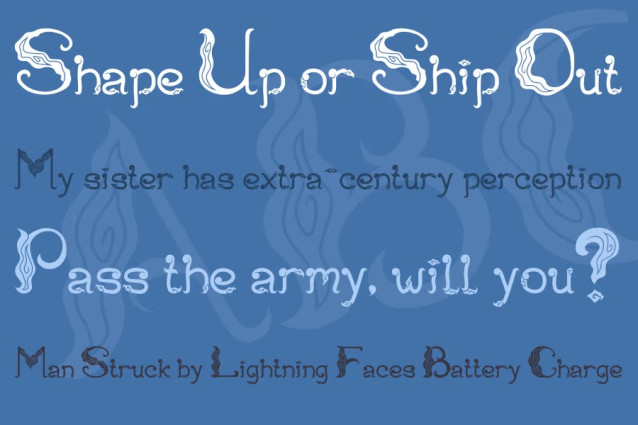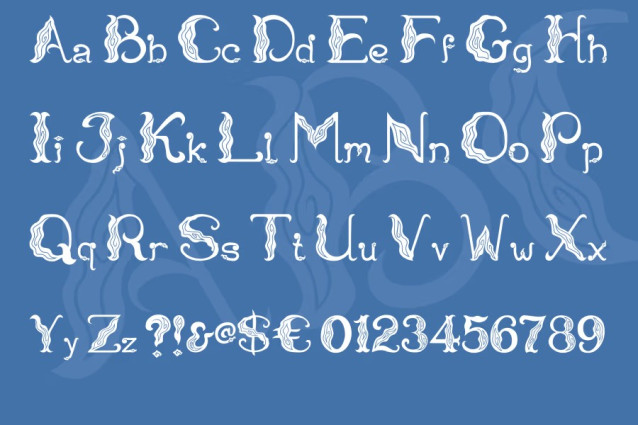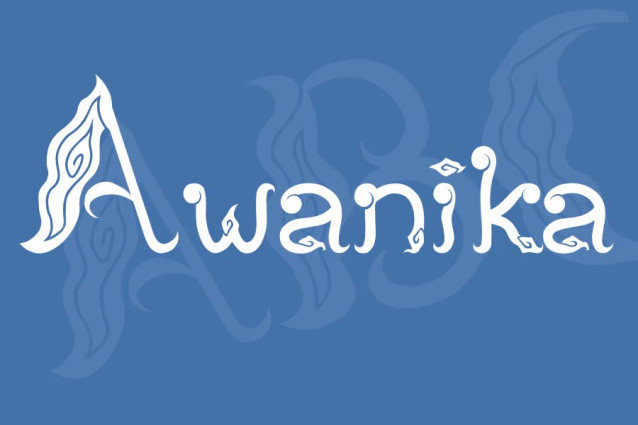
Awanika Font is a typeface inspired by “Mega Mendung,” a traditional Indonesian batik pattern. It is provided free of charge, with no commercial licensing, contact links, or marketplace distribution. Feel free to use it immediately—it is completely free.
Awanika Font